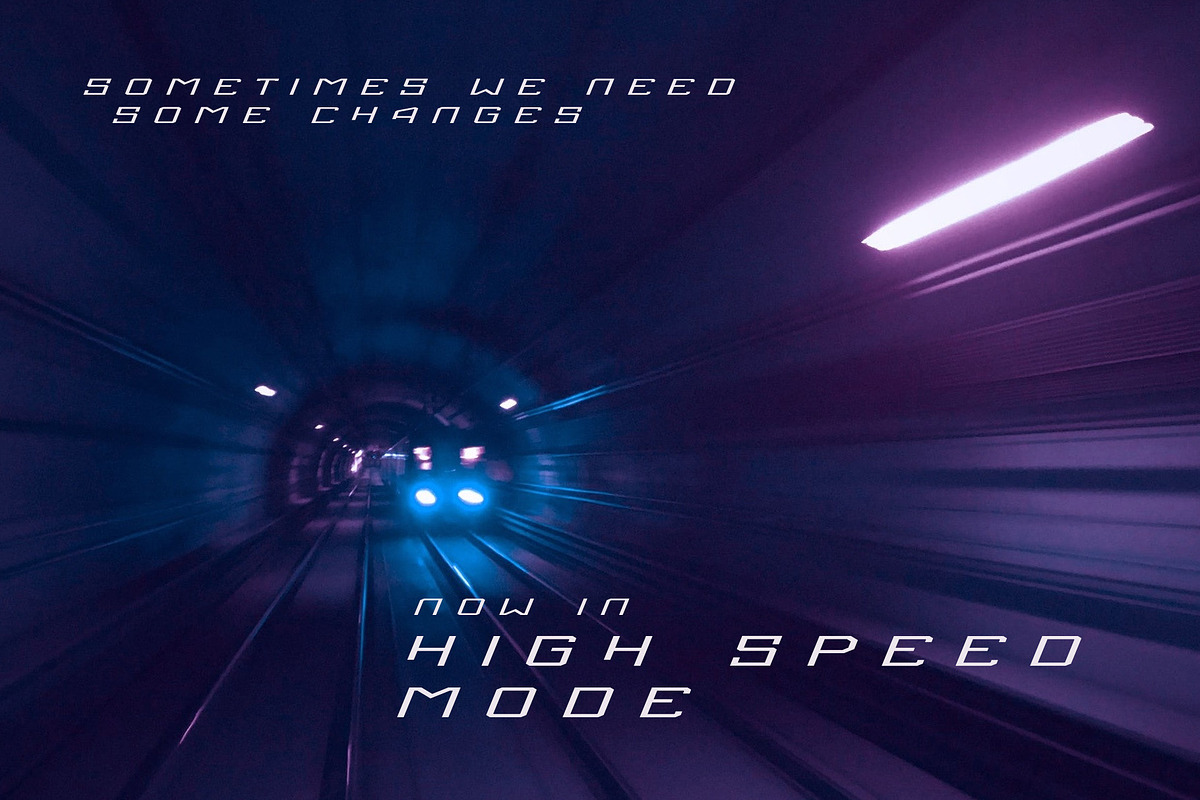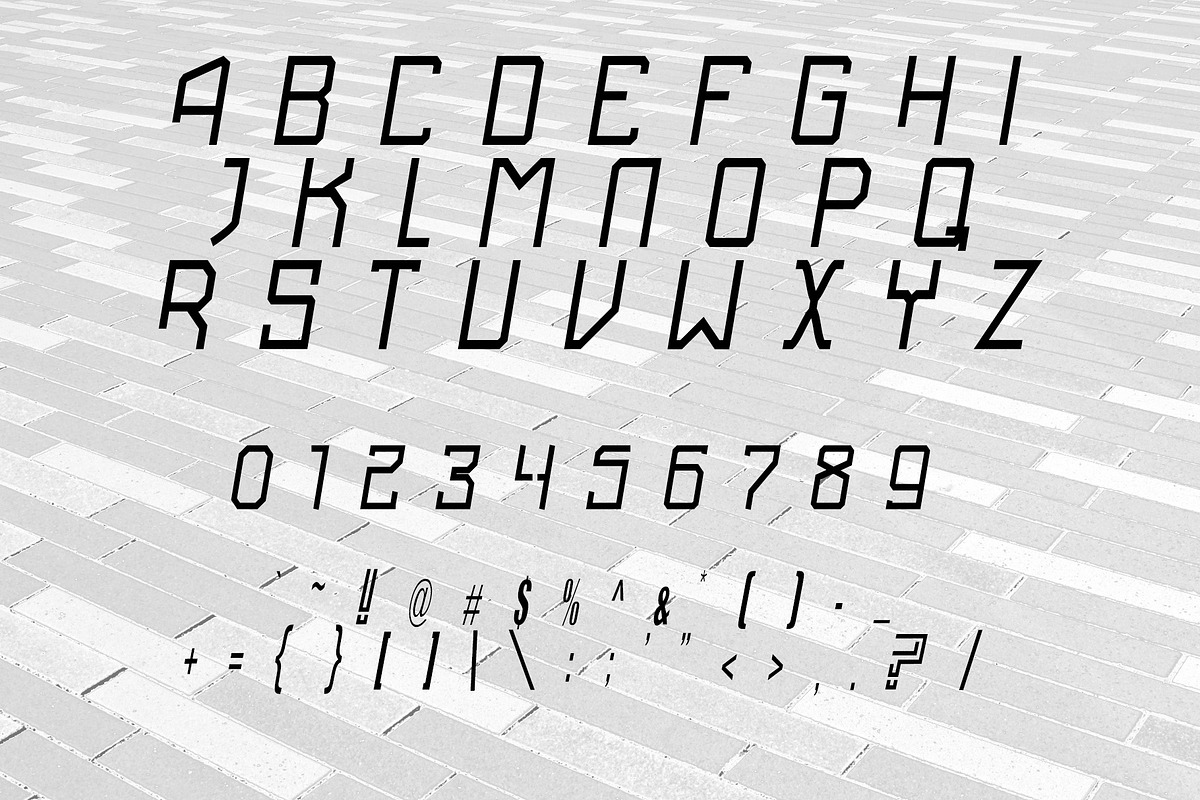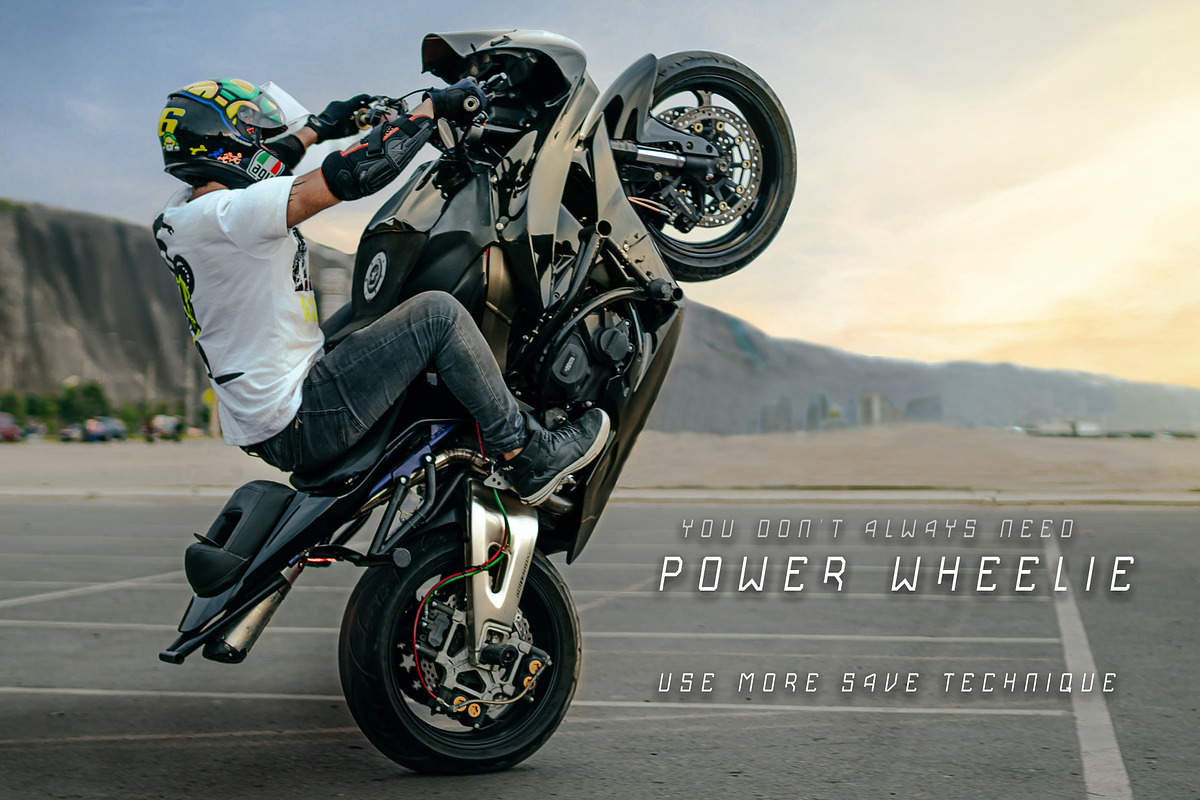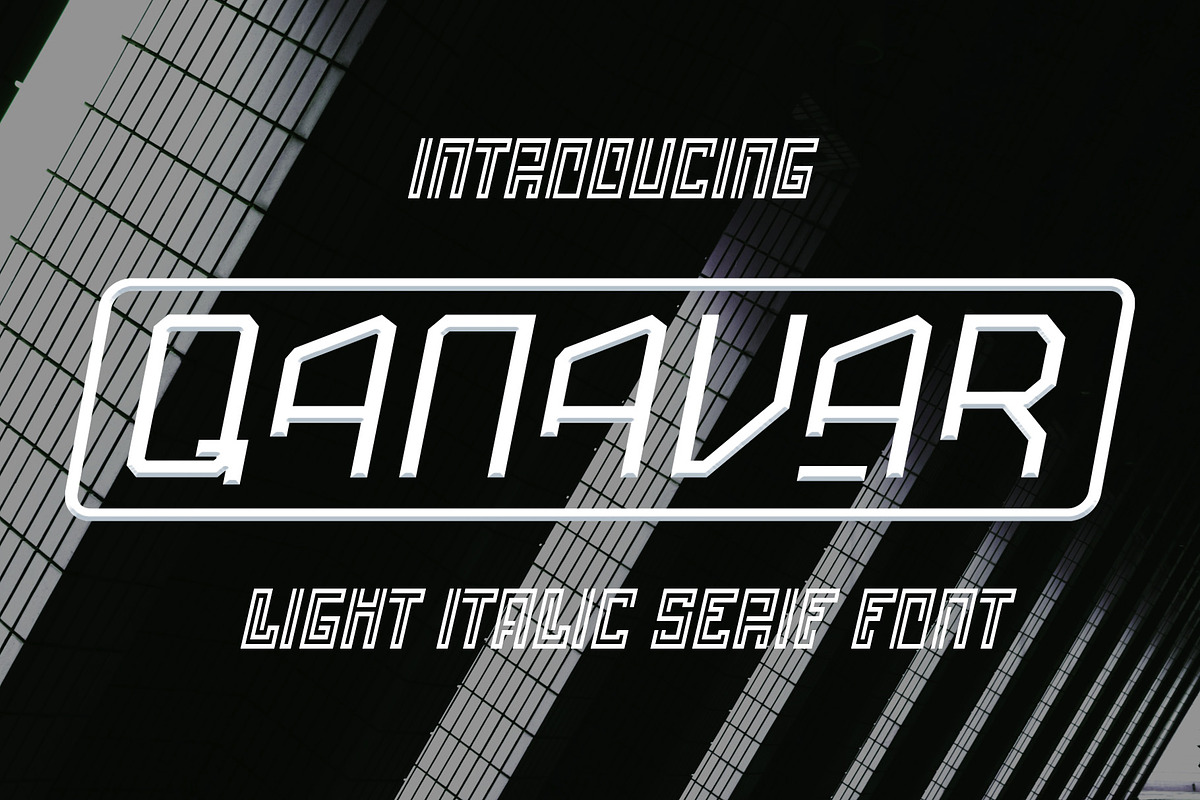
Al Qanavar - Italic Serif
Introducing Al Qanavar, a modern and simple italic fonts. So perfect for you who needs a typeface for logo designs, magazine, social media, brochure, and many more.